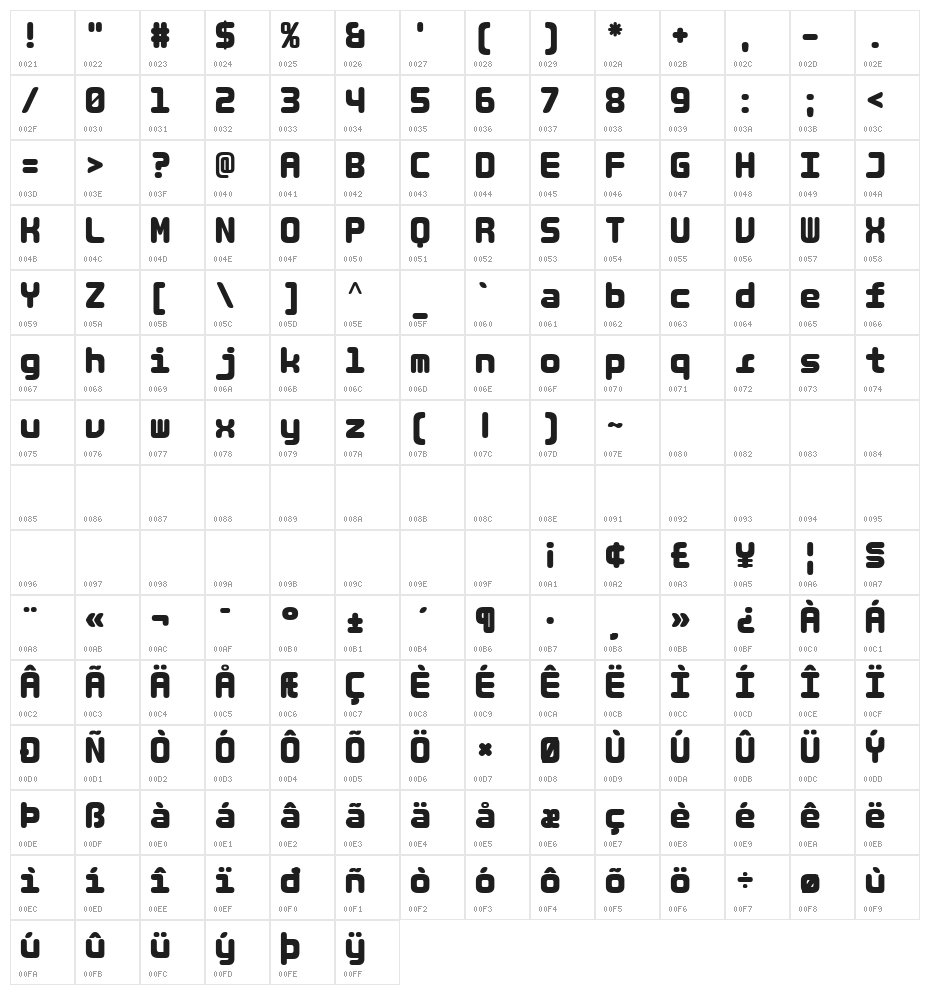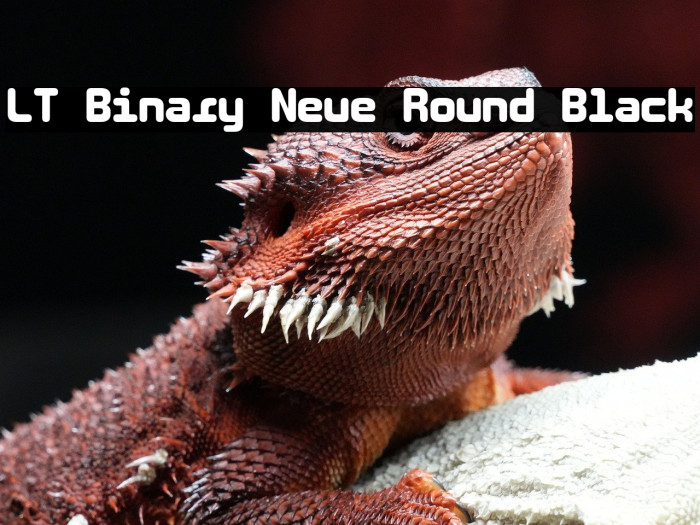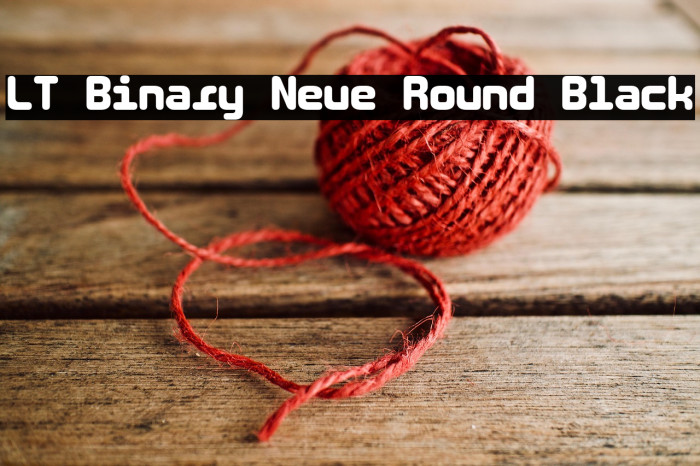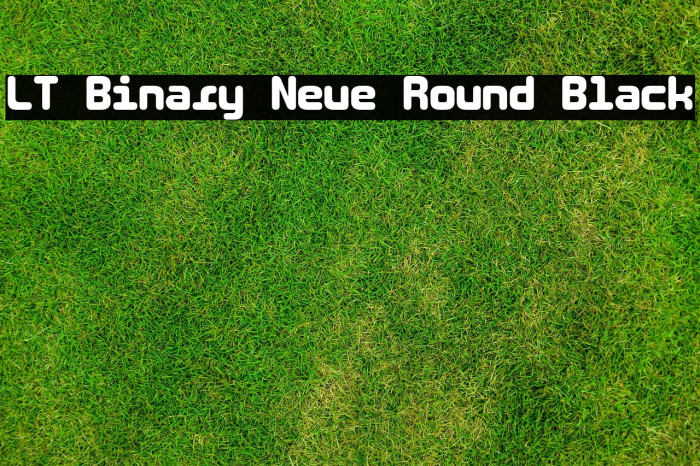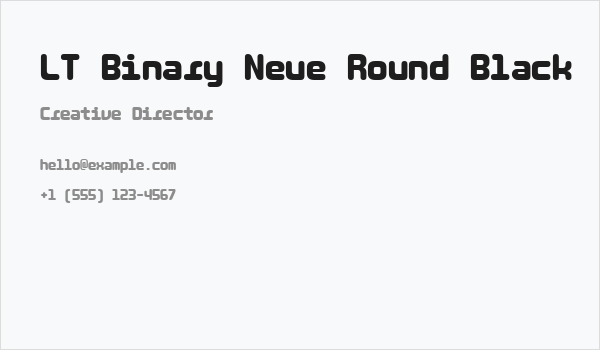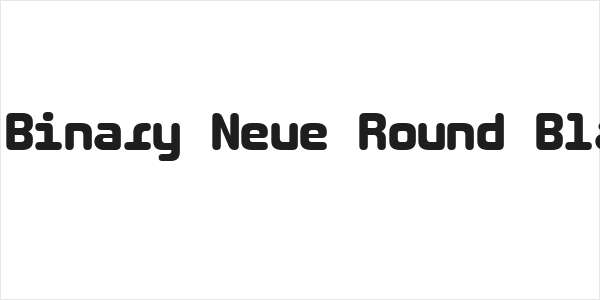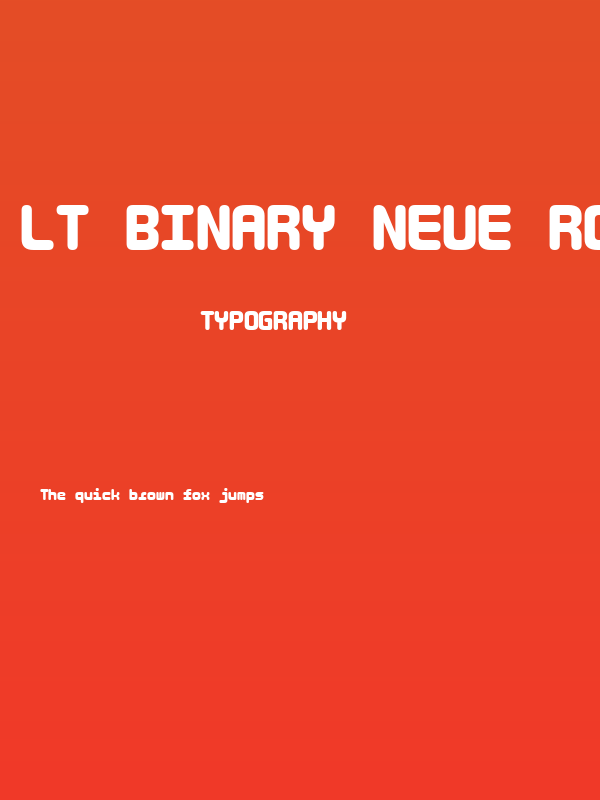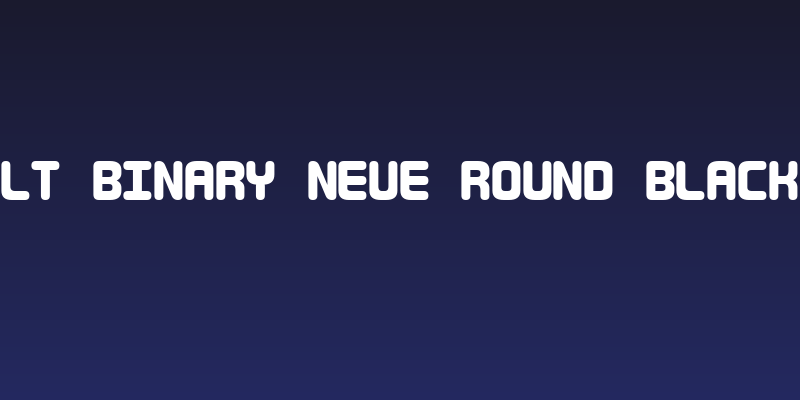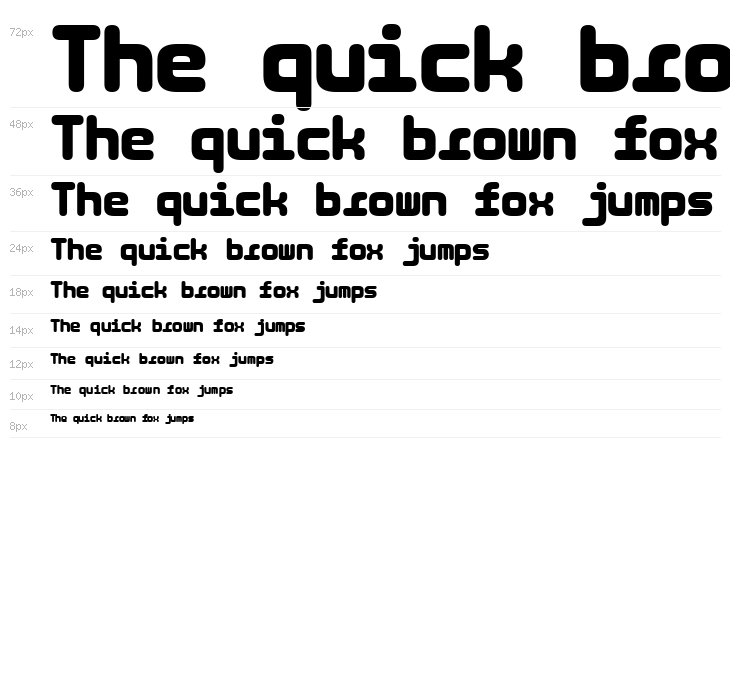
LT Binary Neue Round Black Font
LT Binary Neue Round Black Description
This font features a bold, rounded style that combines modern aesthetics with a playful touch. The characters are uniformly thick, giving a strong and confident appearance. The rounded edges soften the overall look, making it approachable and friendly. The font maintains a consistent weight throughout, ensuring readability and clarity. It is well-suited for digital displays due to its clean lines and distinct shapes. The numerals and special characters are designed to match the boldness of the letters, providing a cohesive look across all elements.
| Use Case | Headlines, Logos, Digital Displays |
| Proposed Projects | Ideal for branding, digital interfaces, children's books, and playful advertising campaigns. |